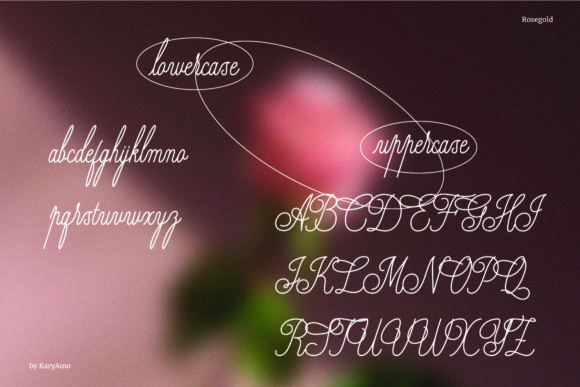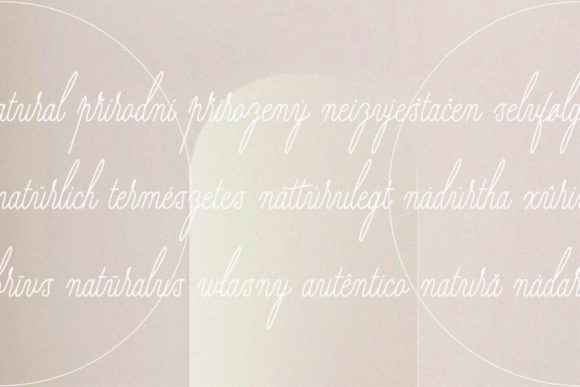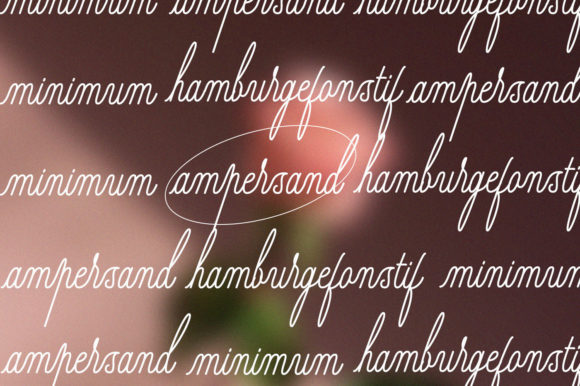
About Rosegold Font
Rosegold is a beautiful and light handwritten font that exudes a unique feel and delivers a stunning impact. With its elegant and luxurious touch, this font adds a spark of sophistication to any design project you wish to create.
The delicate letterforms of Rosegold bring a sense of beauty and grace to your typography. Its light strokes and intricate details make it a perfect choice for designs that require a touch of elegance and refinement. Whether you’re working on branding materials, invitations, packaging, or any other creative project, Rosegold will elevate your designs and leave a lasting impression.
The PUA encoding of Rosegold allows for easy access to all the amazing glyphs and ligatures, providing you with an extensive range of design options. These special characters and letter combinations add versatility and creativity to your compositions, allowing you to craft unique and visually stunning designs effortlessly.
Embrace the beauty and uniqueness of Rosegold and witness how it adds a luxurious spark to your designs. Incorporate this font into your projects and experience the impact it creates.